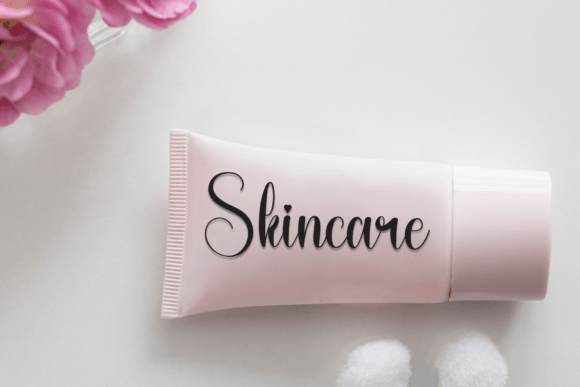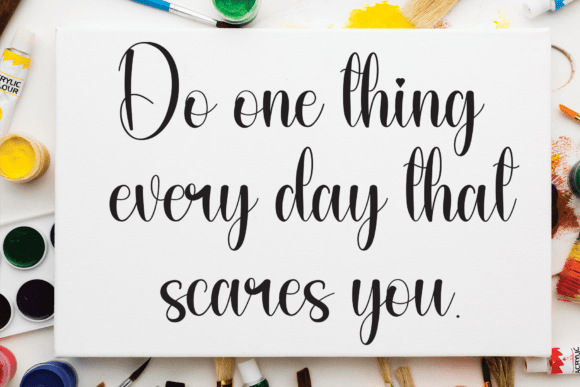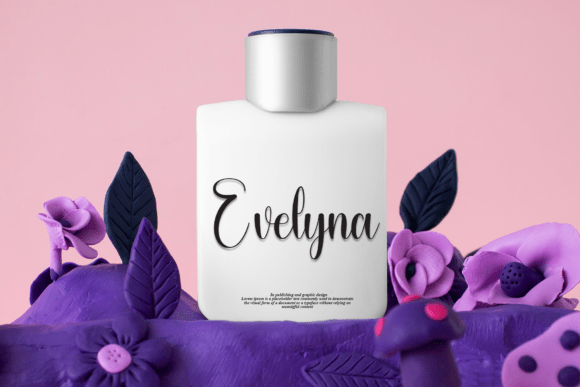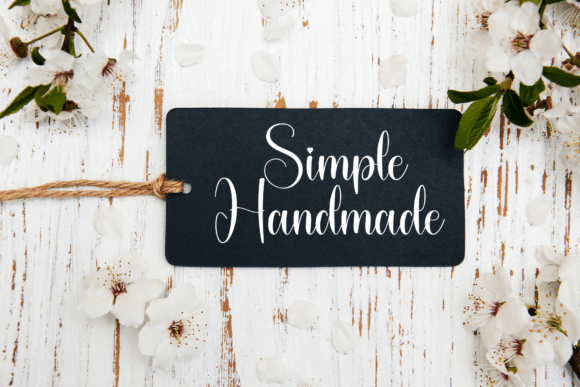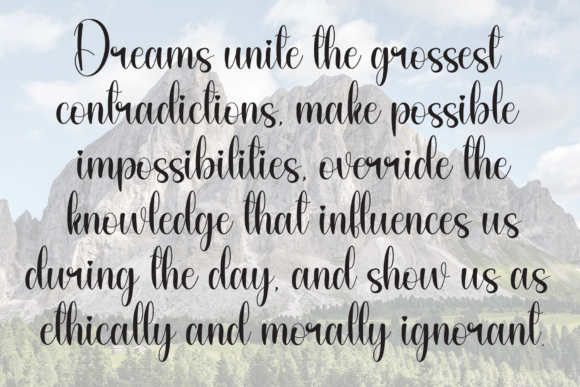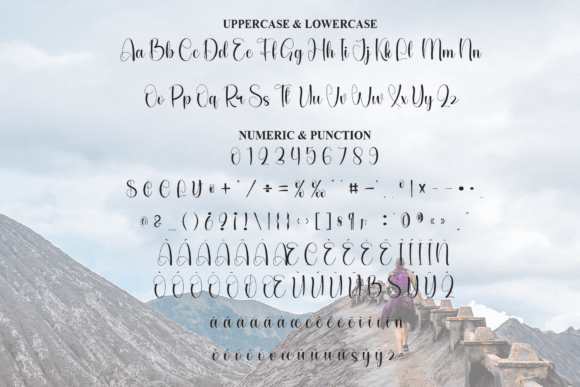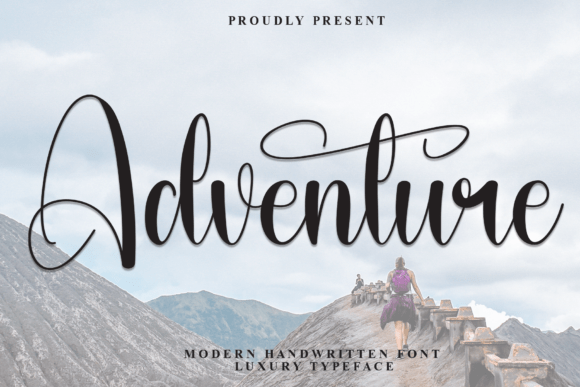
The Adventure Font: Elevating Designs with Elegance and Playfulness
Have you ever been in the midst of working on a design project, and suddenly, it feels like something’s missing? You’re not quite sure what it is, but you know it has to do with the font. I recall a recent experience where I was crafting a logo for a boutique brand, and no matter how hard I tried, the font just didn’t seem to capture the essence of the brand. That’s when I stumbled upon the Adventure Font, and it completely transformed my design.
A First Impression: What Makes Adventure Font Special
The Adventure Font is a stylish handwritten script font that masterfully blends modern elegance with a playful touch. Its fluid strokes and charming curves bring a personal feel to any design, making it perfect for logos, packaging, and invitations. This typeface adds warmth, sophistication, and creativity to every project, making it an excellent choice for designers, crafters, and creative hobbyists.
• ✨ Elegant and modern design that adds a touch of sophistication to any project
• ✅ Highly versatile and adaptable to various design needs
• 🌈 Wide range of applications, from logos and packaging to invitations and more
• 💻 Excellent OpenType features, glyphs, and stylistic alternates for added creativity
While the Adventure Font is exceptional, there are a few minor considerations to keep in mind:
• ⚠️ Some users might find the font’s script style a bit challenging to read at smaller sizes
• 🤔 Limited availability of certain special characters, which may require additional design workarounds
The Designer Inspiration Behind Adventure Font
The Adventure Font was designed with the intention of creating a typeface that embodies the spirit of adventure and creativity. The designer aimed to craft a font that would be both elegant and playful, making it suitable for a wide range of design applications.
Q: What makes Adventure Font unique?
A: The Adventure Font’s unique blend of modern elegance and playfulness sets it apart from other fonts.
Q: Is Adventure Font suitable for body text?
A: While Adventure Font is primarily designed for display purposes, it can be used for body text in certain contexts, but it’s recommended to use it at larger font sizes for optimal readability.